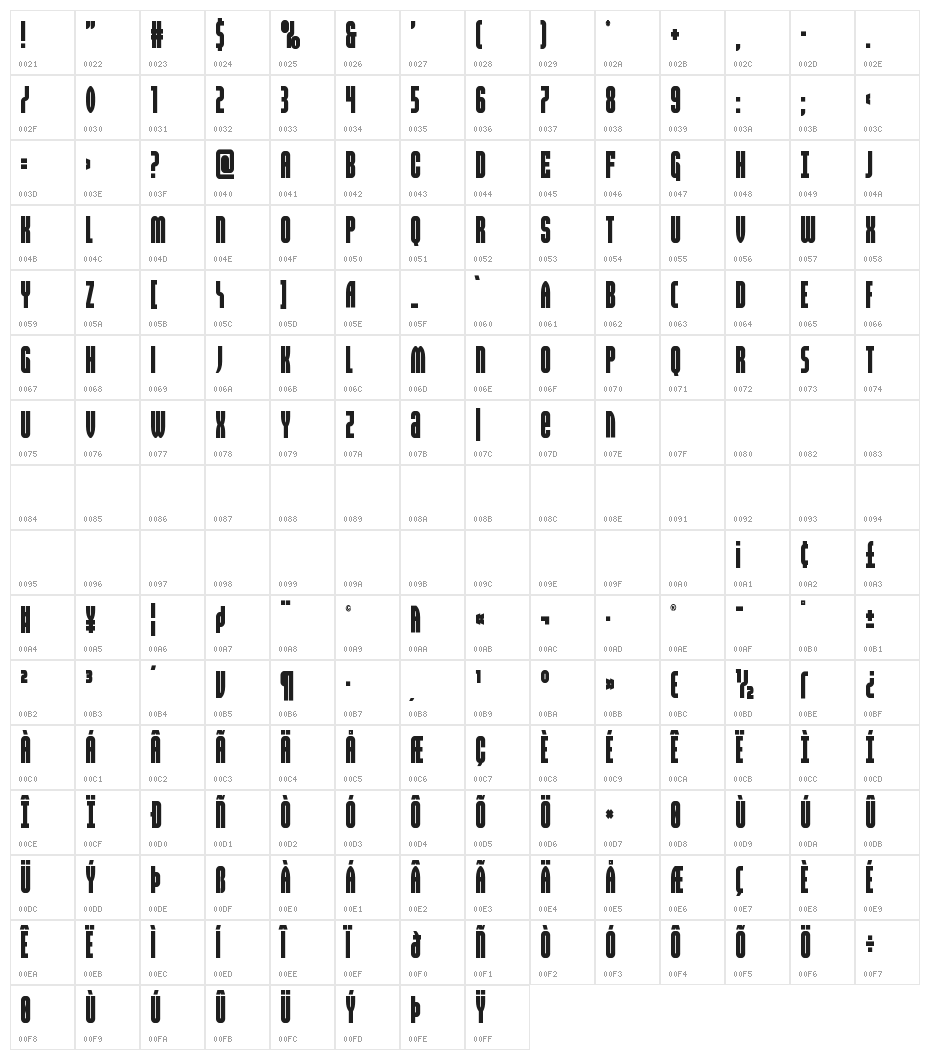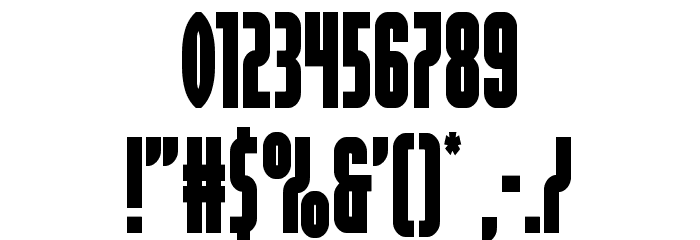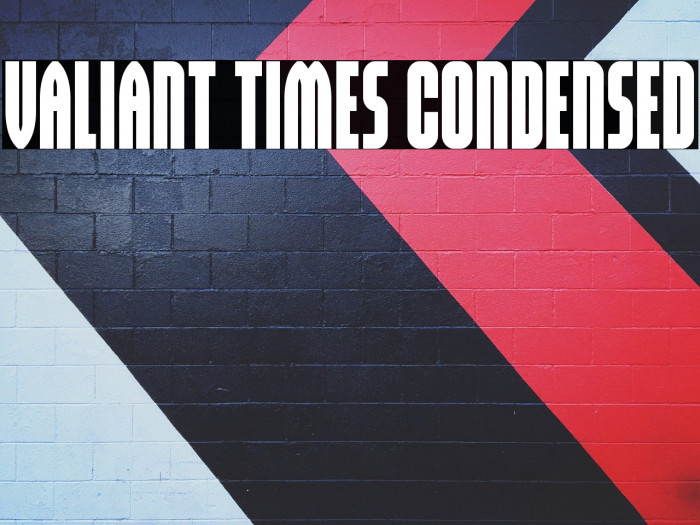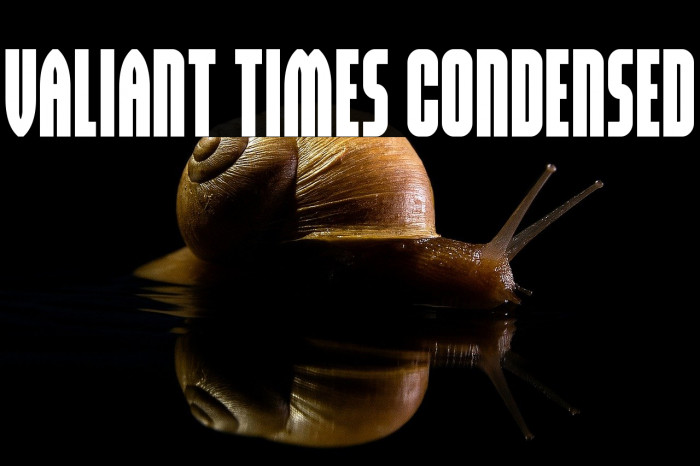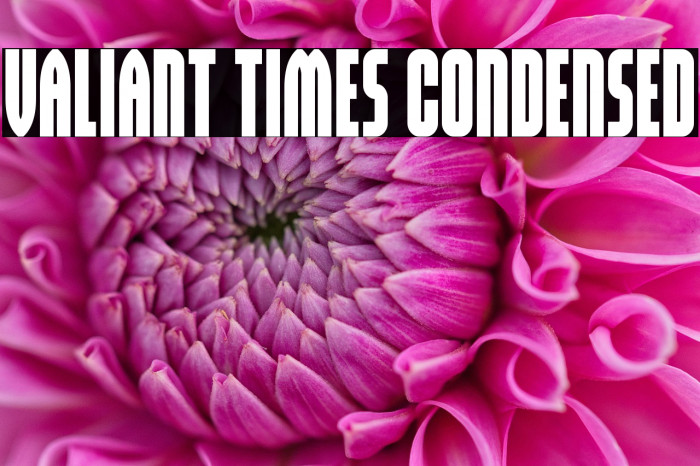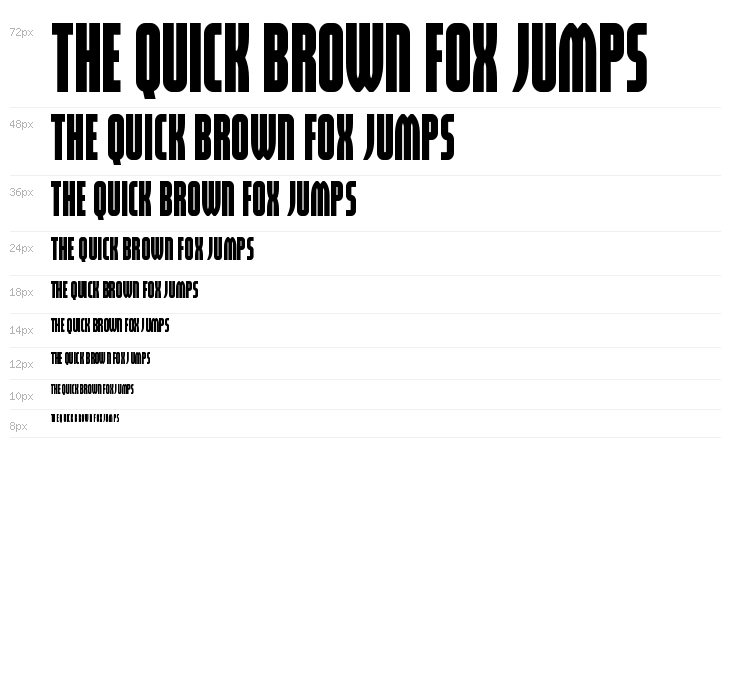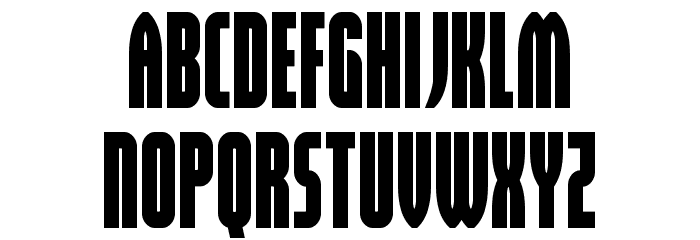
Valiant Times Condensed Font
Valiant Times Condensed Description
This font features a bold and condensed style, characterized by its thick, uniform strokes and narrow letterforms. The uppercase and lowercase letters maintain a consistent height, giving it a compact and powerful appearance. The numerals and special characters are designed to match the boldness of the alphabet, ensuring a cohesive look across all text. Its strong geometric shapes and lack of serifs contribute to a modern and assertive aesthetic, making it suitable for impactful headlines and attention-grabbing designs.